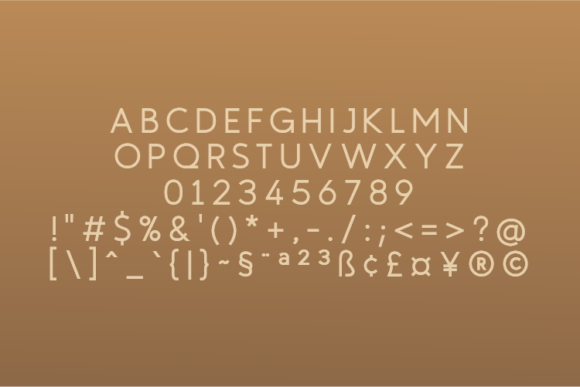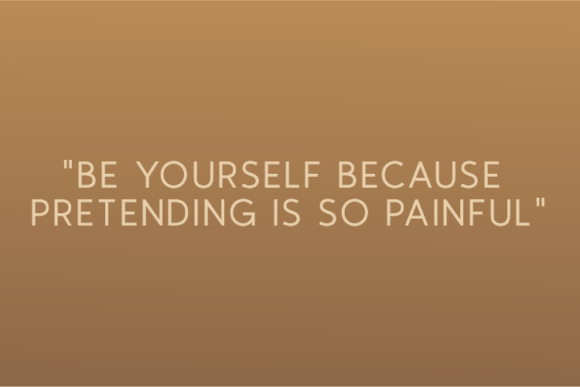
Introduction to Chocogom Font
Chocogom is a thin lettered and simple sans serif font.
With smooth and clean lines, this font works beautifully for logos, branding, and web headings .
Key Features of Chocogom Font
Why Choose Chocogom Font?